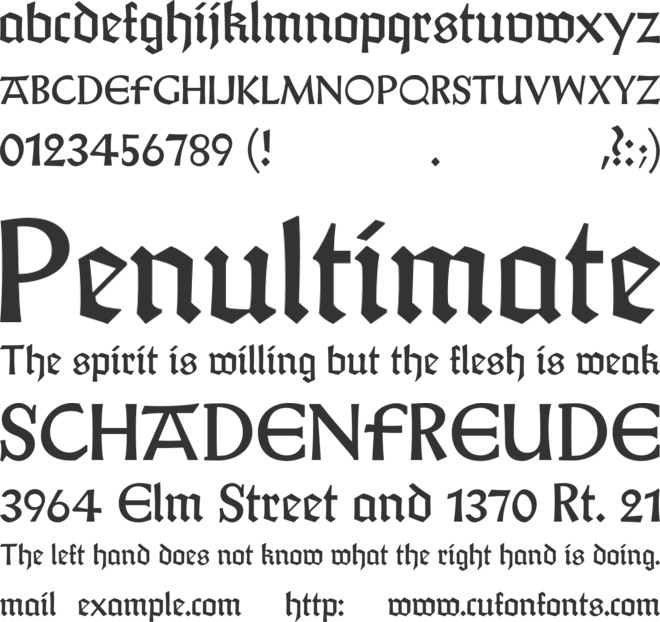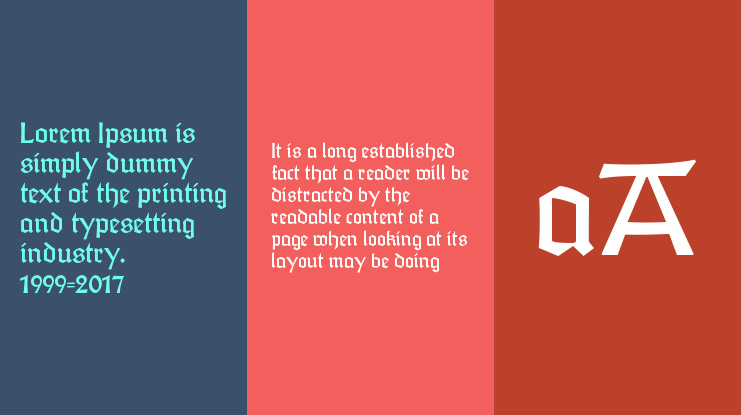
Jessen Font Family
Alexis Faudot, Rafael Ribas
Jessen, hybrid of gothic minuscules and roman capitals designed and cut without preliminary drawings in Offenbach am Main by Rudolf Koch for The Four Gospels. Printed at the Klingspor press in 1926 and published by Koch himself. Formerly named Bibel-Gotisch, the type was released as Jessen in several sizes by the Klingspor foundry in 1930.Type design workshop at ESAD â¢Valence, April 2016.Sources: Das Blumenbuch, Rudolf Koch, 1929 & Jessen specimen, Klingspor Foundry, 1934 & Mainz zur Zeit Gutenbergs, Richard Dertsch, 1937.Workshop participants: Quentin Bohuon, Liv-Anny Cascales, Ariane Corfmat, Quantin Coulombier, Sirima de Resseguier, Marion Dessart, Leo Durand, Justine Gagnaire, Baptiste Garcia, Julian Lagoutte, Emma Mariolle, Agathe Martinez, Claire Peressoti, Laura Piccolo, Khanh Robert, Maxime Samouiller, Kevin Vasic, Alexis Boscariol, Benoît Canaud, Johan Chaneac.Font designed and produced by Alexis Faudot and Rafael Ribas, directed by Jérôme Knebusch, Atelier National de Recherche Typographqiue (ANRT), Nancy.Copyright (c) 2019 ANRT. All rights reserved.